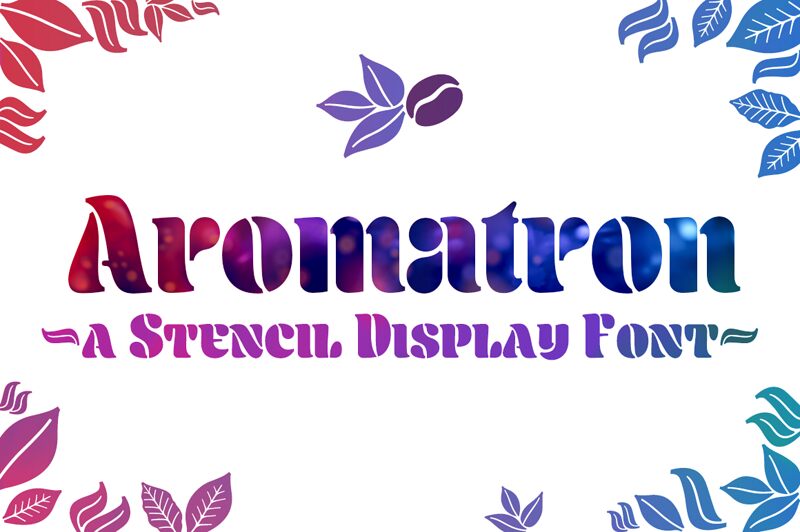
Aromatron is a smooth and rich display font. Striking the perfect balance between a vintage and modern, and packed with great OpenType features, this versatile font is guaranteed to add bold character to any design.
Aromatron explores the stencil type genre while providing great legibility. Unique solutions give the type an even, dark color.
Aromatron explores and extends the stencil type genre, balancing between legible letterform and pure aesthetics by combining refined leaf-resembling stems with graceful teardrop terminals.